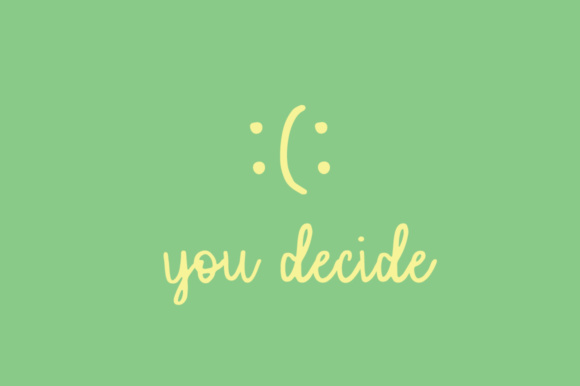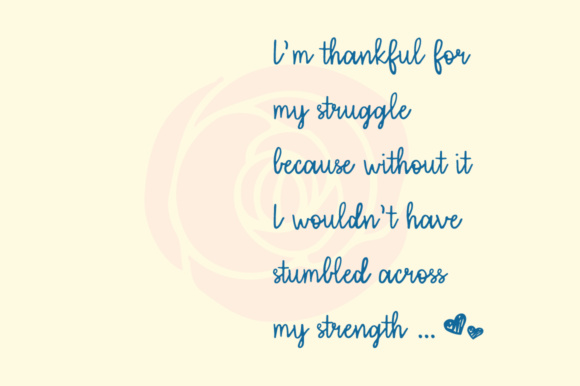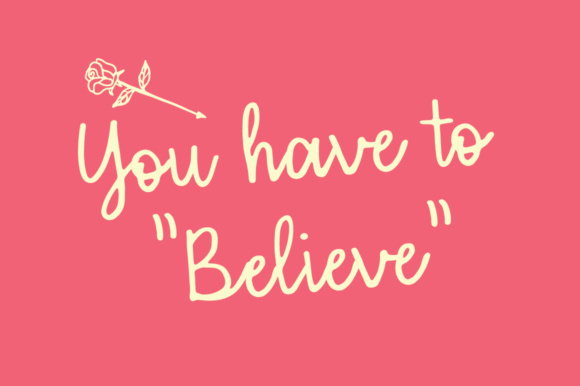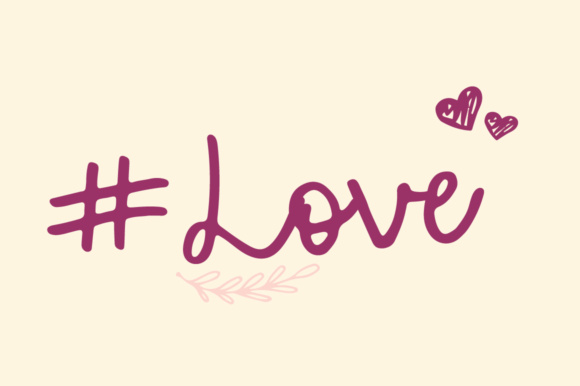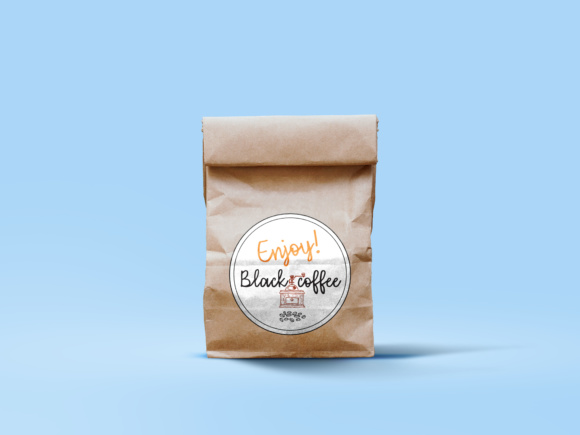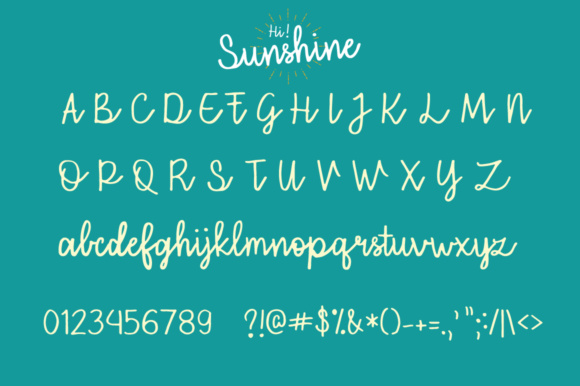
Introduction to Hi Sunshine Font
Hi Sunshine is a cute typeface which can be used on cards, posters, merchandise, book covers, websites, packaging, and basically anywhere you like.
The overall feel of the font is simple, warm, elegant and informal and itโ€™s perfect if you want to convey a sense of friendliness and style .